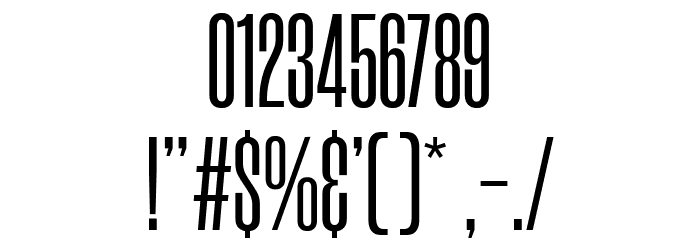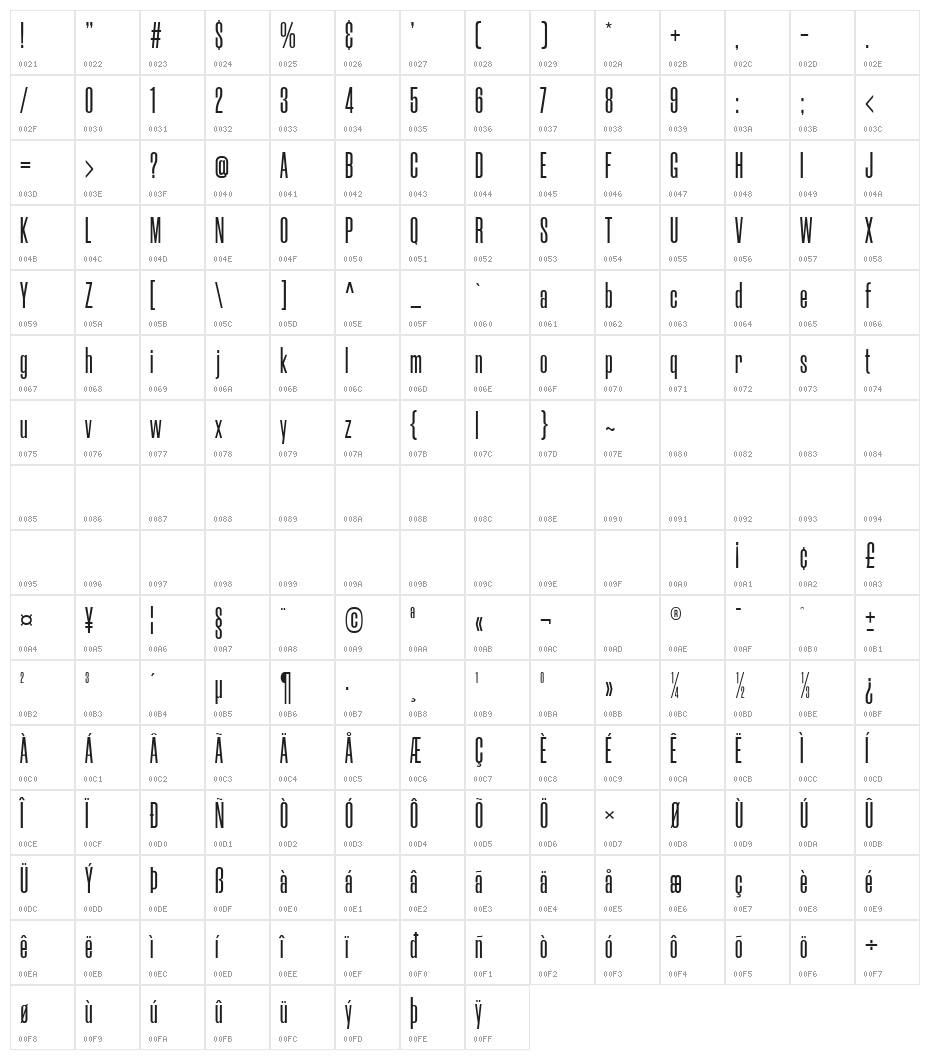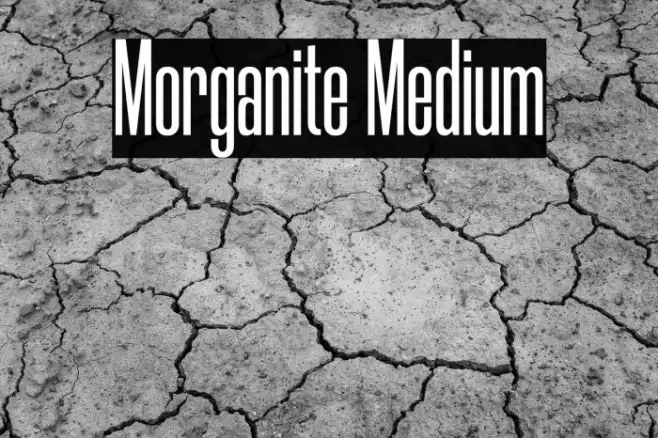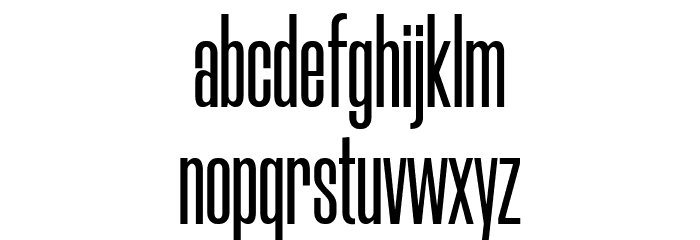
Morganite Medium Font
Morganite Medium Description
This font features a tall, condensed structure with clean lines and a modern aesthetic. The uppercase letters are bold and striking, making a strong visual impact. The lowercase letters maintain the same condensed style, offering a cohesive look across different text cases. The numerals are uniform in height, aligning well with the uppercase letters, which ensures readability and balance. Special characters are designed with the same attention to detail, providing versatility for various design needs. The overall appearance is sleek and contemporary, suitable for projects that require a modern and professional touch.